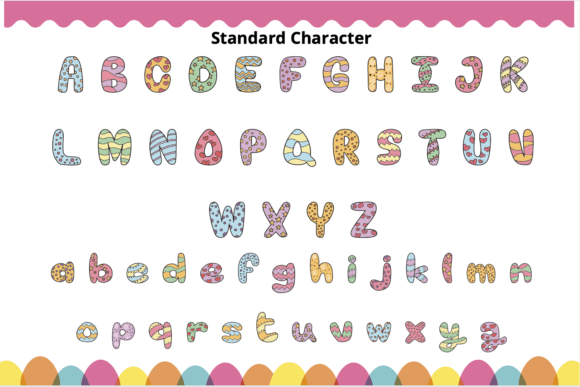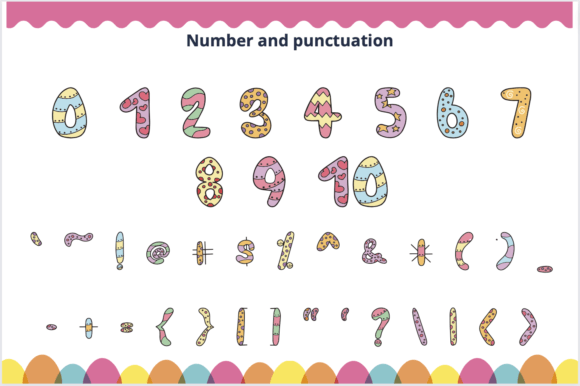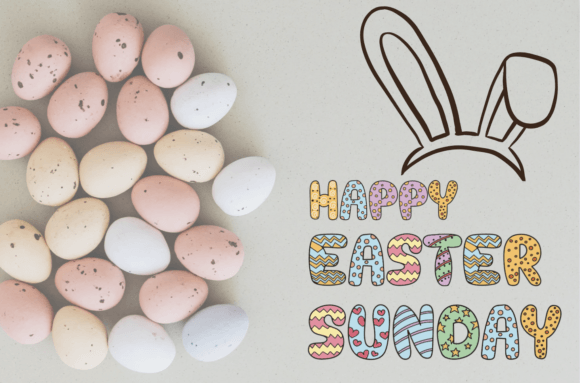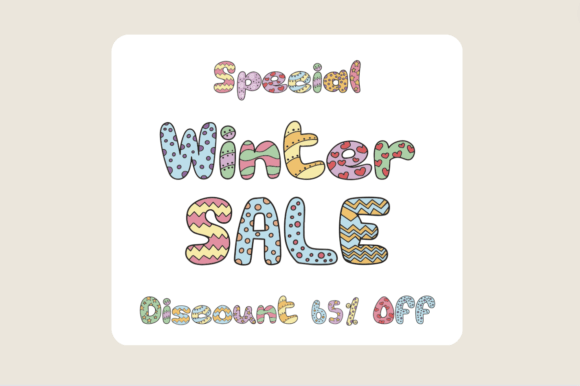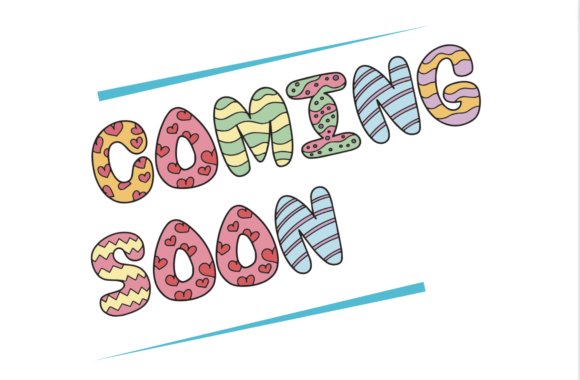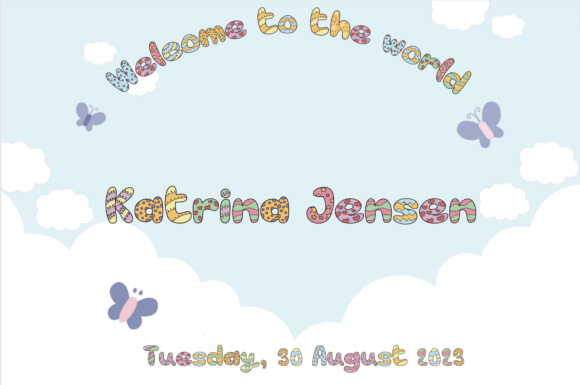
Easter Fancy Font: Elevate Your Designs with a Whimsical and Clean Handwritten Style
As Easter approaches, designers and crafters are on the lookout for the perfect font to add a touch of whimsy and festivity to their projects. Look no further than the Easter Fancy Font, a beautiful and clean handwritten font that’s perfect for a wide range of creative endeavors. In this article, we’ll dive into the world of Easter Fancy Font and explore how it can elevate your designs and make them stand out.
What is Easter Fancy Font?
Easter Fancy Font is a delightful and elegant handwritten font that’s designed to bring a touch of springtime charm to your projects. With its whimsical and clean lines, this font is perfect for creating eye-catching designs that are sure to impress. Whether you’re working on Easter-themed crafts, spring-inspired marketing materials, or simply want to add a personal touch to your digital creations, Easter Fancy Font is the perfect choice.
Key Features of Easter Fancy Font
So, what makes Easter Fancy Font so special? Here are just a few of its key features:
- Whimsical and clean design: Easter Fancy Font boasts a beautiful, handwritten design that’s both playful and elegant.
- Highly versatile: This font can be used for a wide range of projects, from Easter-themed crafts and spring-inspired marketing materials to digital creations and more.
- Easy to read: Despite its whimsical design, Easter Fancy Font is incredibly easy to read, making it perfect for both digital and print applications.
How to Use Easter Fancy Font in Your Designs
So, how can you use Easter Fancy Font in your designs? Here are a few ideas to get you started:
- Easter-themed crafts: Use Easter Fancy Font to create adorable Easter-themed crafts, such as Easter egg decorations, gift tags, and more.
- Spring-inspired marketing materials: Add a touch of springtime charm to your marketing materials, such as brochures, flyers, and social media graphics.
- Digital creations: Use Easter Fancy Font to add a personal touch to your digital creations, such as blog posts, social media graphics, and more.
- Stationery and invitations: Create beautiful and eye-catching stationery and invitations using Easter Fancy Font.
Tips for Getting the Most Out of Easter Fancy Font
Here are a few tips for getting the most out of Easter Fancy Font:
- Experiment with different colors: Easter Fancy Font looks great in a variety of colors, so don’t be afraid to experiment and find the perfect hue for your design.
- Pair with other fonts: Easter Fancy Font pairs beautifully with other fonts, so try combining it with a bold font for headings and a clean font for body text.
- Use it sparingly: While Easter Fancy Font is beautiful, it can be overwhelming if used too much. Use it sparingly to add a touch of whimsy to your design.
In conclusion, Easter Fancy Font is a beautiful and versatile font that’s perfect for designers and crafters looking to add a touch of whimsy and festivity to their projects. With its clean and elegant design, Easter Fancy Font is sure to elevate your designs and make them stand out. So why wait? Download Easter Fancy Font today and start creating your own Easter-themed masterpieces!
Whether you’re a seasoned designer or a crafty DIY enthusiast, Easter Fancy Font is sure to become a favorite in your font collection. So go ahead, get creative, and have fun with Easter Fancy Font!